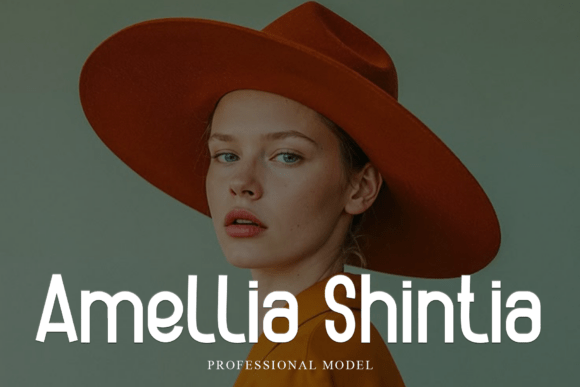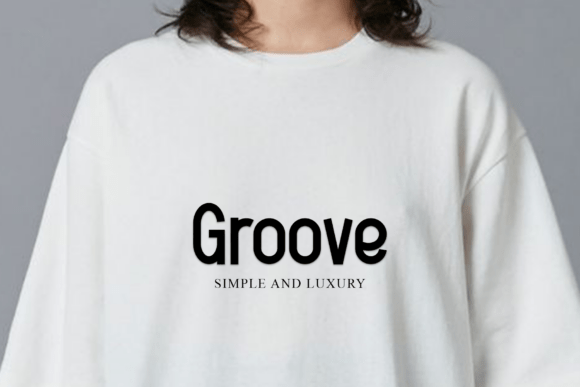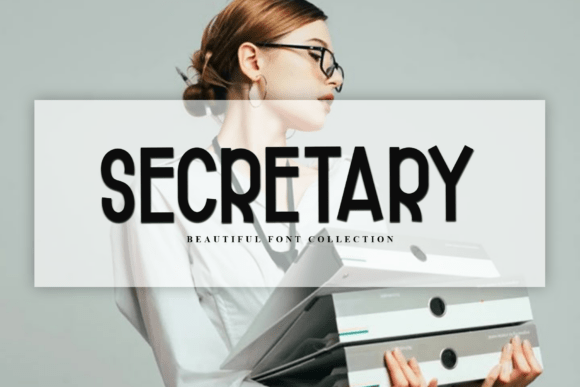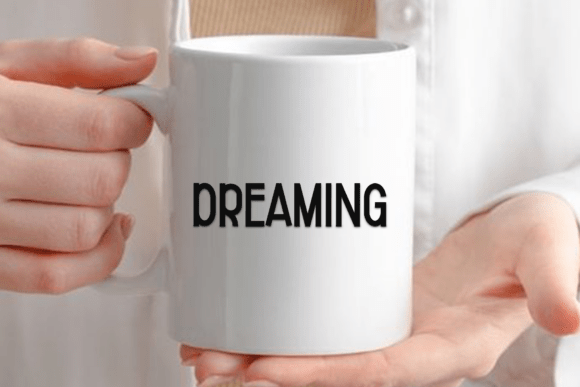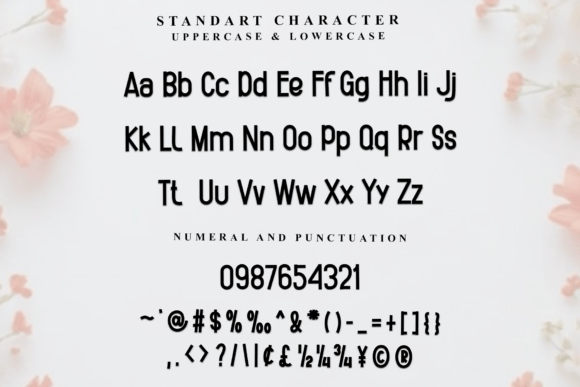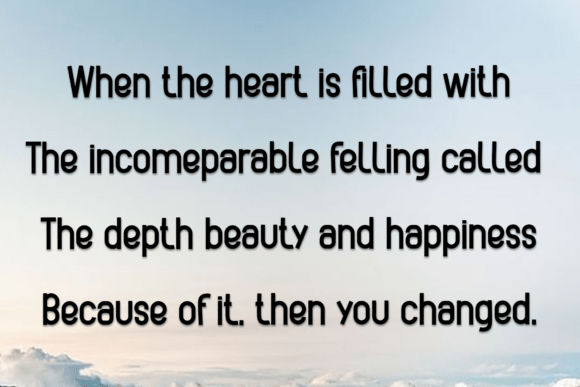
Discover the Unique Charm of Brother Font: Elevate Your Designs with Its Soft and Versatile Style
In the world of typography, fonts play a crucial role in conveying messages, evoking emotions, and adding personality to designs. Among the myriad of fonts available, Brother Font stands out with its soft, unique touch and distinctive strokes, making it a valuable asset for designers, crafters, and creative professionals. In this article, we’ll delve into the characteristics, benefits, and applications of Brother Font, exploring how it can enhance your designs and appeal to diverse audiences.
The Distinctive Features of Brother Font
Brother Font is a beautifully crafted typeface that boasts a range of unique features, setting it apart from more conventional fonts. Its soft and delicate appearance lends a touch of elegance and sophistication to any design project. The font’s distinctive strokes are carefully designed to give it a special character, making it both meaningful and versatile for future use.
One of the key advantages of Brother Font is its extensive character set. With a wide variety of characters, this font is perfect for design projects, crafts, and other creative works that require a high level of customization and personalization. Whether you’re working on a logo, brochure, or social media graphics, Brother Font provides the flexibility and creativity you need to bring your vision to life.
Brother Font is designed to be highly compatible with various applications and platforms, making it an excellent choice for designers and crafters who work across different mediums. Whether you’re using Windows or open-source platforms, this natural font style can be easily integrated into your workflow.
The versatility of Brother Font is another one of its standout features. This font is ideal for a wide range of products, from digital designs and crafts to print materials and merchandise. Its unique style and charm can enhance your designs, making them appealing to many audiences across different artistic and creative fields.
Applications of Brother Font
So, what can you create with Brother Font? The possibilities are endless! Here are a few examples of how you can use this beautiful font in your design projects:
- Logos and Branding: Use Brother Font to create unique and memorable logos that reflect your brand’s personality and values.
- Digital Designs: Add a touch of elegance and sophistication to your social media graphics, website headers, and other digital designs.
- Crafts and DIY Projects: Incorporate Brother Font into your handmade crafts, such as cards, invitations, and scrapbooking projects.
- Print Materials: Use Brother Font in your brochures, flyers, posters, and other print materials to give them a distinctive and eye-catching look.
- Merchandise: Apply Brother Font to your merchandise designs, such as t-shirts, mugs, and tote bags, to create unique and appealing products.
Tips for Using Brother Font Effectively
To get the most out of Brother Font, here are a few tips to keep in mind:
- Experiment with different sizes and colors: Brother Font looks great in various sizes and colors, so don’t be afraid to experiment and find the perfect combination for your design.
- Pair it with complementary fonts: Combine Brother Font with other fonts that complement its style and personality to create visually appealing and harmonious designs.
- Use it consistently: To establish a strong brand identity, use Brother Font consistently across all your design materials.
In conclusion, Brother Font is a beautiful and eye-catching font that offers a unique touch and distinctive strokes, making it a valuable asset for designers, crafters, and creative professionals. Its extensive character set, compatibility, and versatility make it perfect for a wide range of design projects and applications. By incorporating Brother Font into your designs, you can elevate your work, appeal to diverse audiences, and establish a strong brand identity. So why not give Brother Font a try and discover its unique charm for yourself?